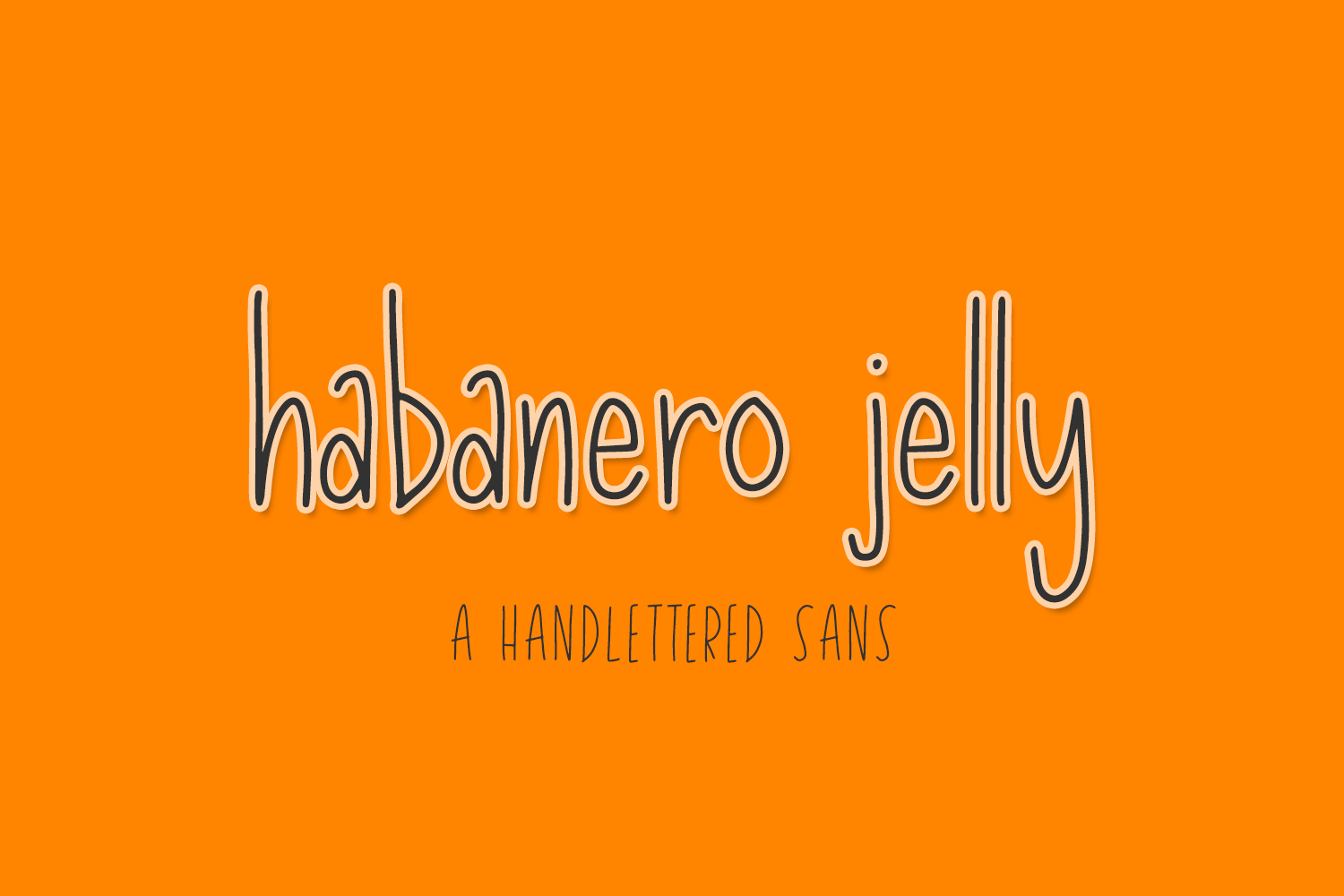
Meet Habanero Jelly Sans, a thin, skinny handwritten font. Habanero Jelly Sans has a bit of a wobbly, imperfect edge, like writing with a pencil.
Habanero Jelly Sans is best for:
- classrooms & teachers, with a childlike handwritten touch
- header elements that need a fun look & feel